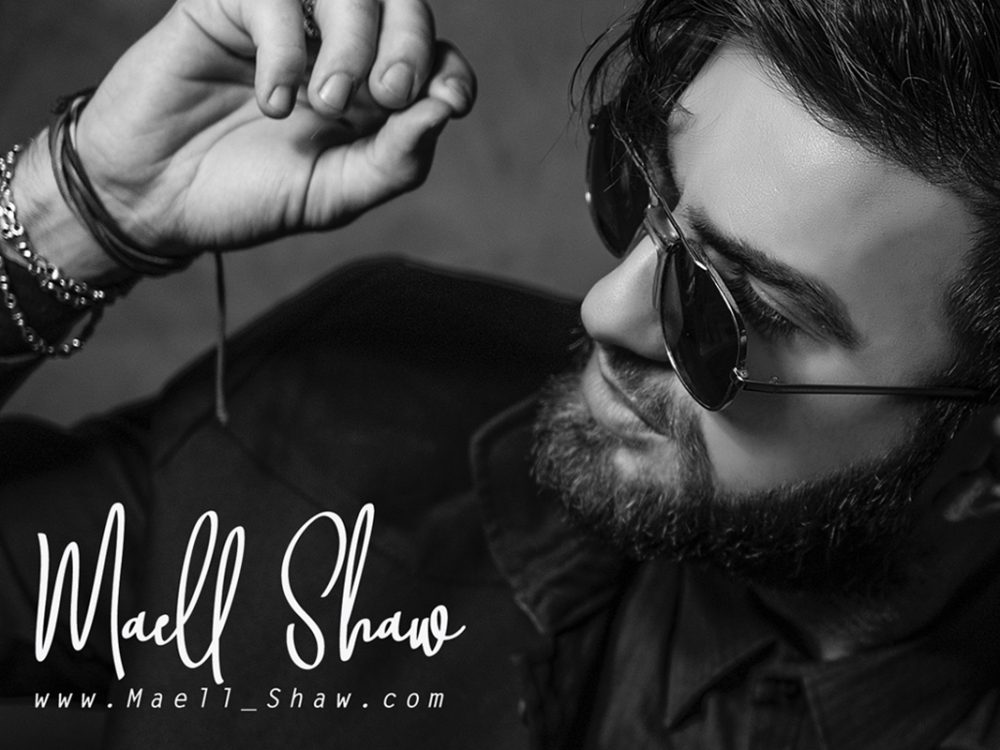
Baropetha Free Font
Baropetha Free Font is an interesting typeface with a unique calligraphic style. This font is very suitable for a variety of design projects that require a scripted handwritten font. You can use this font to create memorable romantic posters, wedding invitations, greeting cards, branding, flyers, t-shirt and pillow prints, and more. Improve the quality and increase the popularity of your design projects by using this font. If you like it don’t forget to check out the full version.